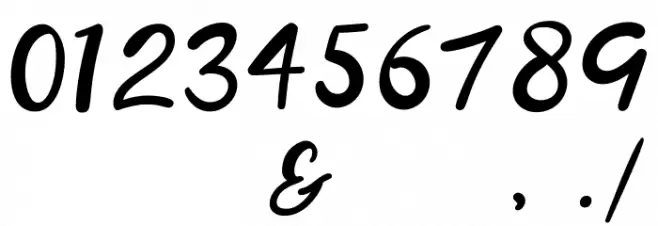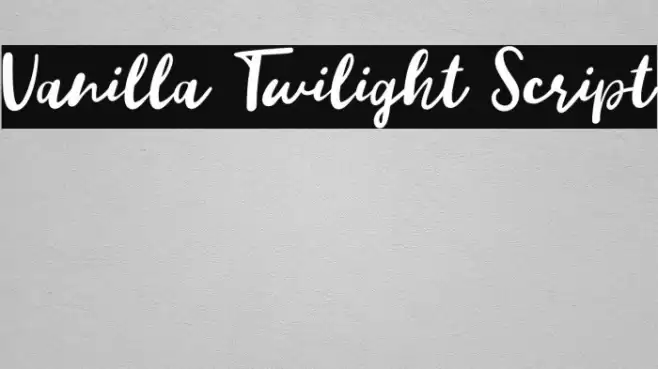
Vanilla Twilight Script Font
Vanilla Twilight Script Description
This script font exudes a lively and dynamic character, with its flowing, cursive style that mimics natural handwriting. The letters are interconnected, creating a seamless and elegant appearance. The uppercase letters are bold and slightly larger, providing a strong presence, while the lowercase letters maintain a consistent flow with gentle curves and loops. The numbers are well-integrated into the style, maintaining the same fluidity and elegance. Special characters like the ampersand and punctuation marks are crafted with the same attention to detail, ensuring a cohesive look throughout. This font is perfect for adding a personal touch to any project, offering a balance of sophistication and playfulness.
| Use Case | Logos, Invitations, Greeting Cards |
| Proposed Projects | Ideal for wedding invitations, greeting cards, personal branding, and creative projects that require a personal touch. |